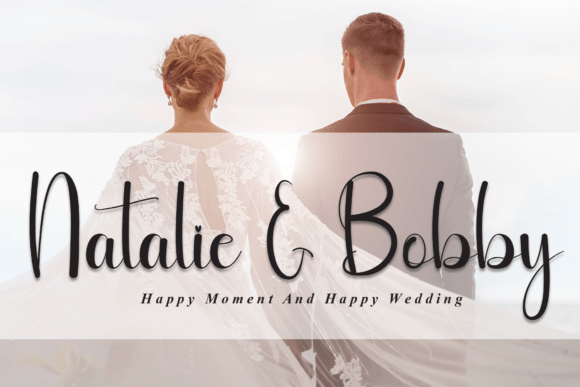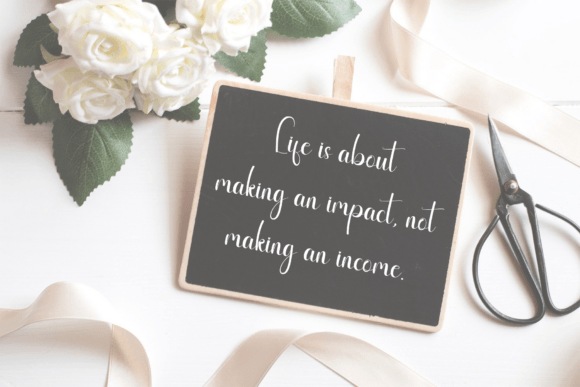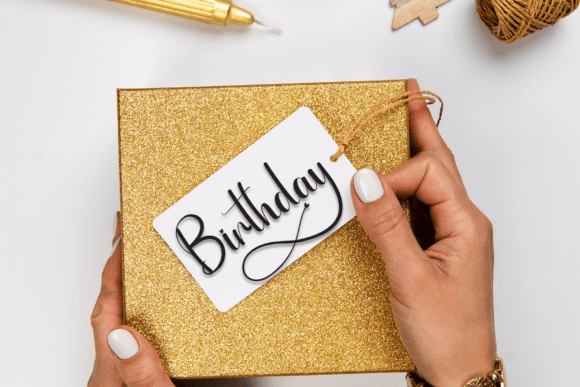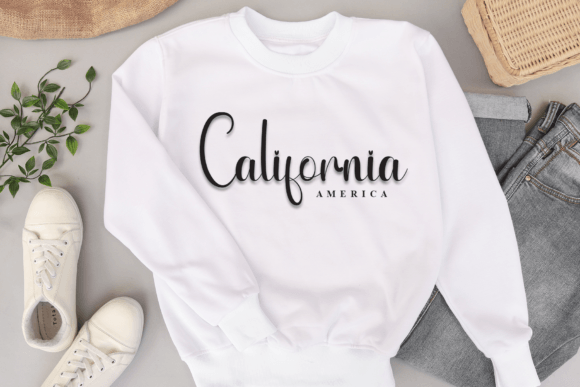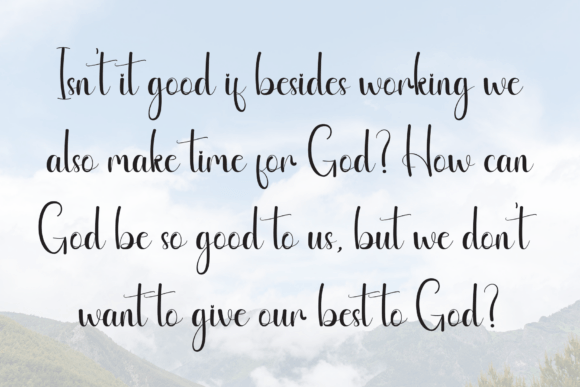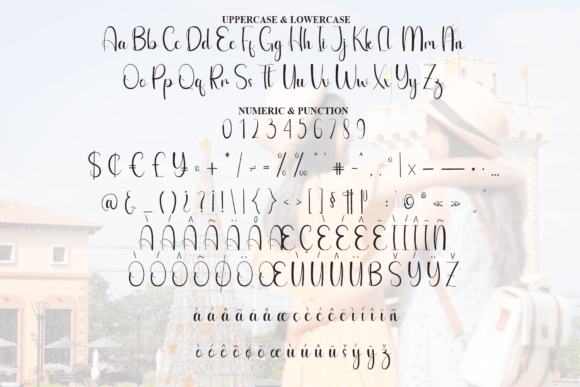
Discover the Magic of Holiday Font
As you sit down to plan your next big project, you can’t help but feel a rush of excitement and creativity. Whether it’s a wedding invitation, a holiday card, or a special birthday message, you want to make it truly unforgettable. That’s where Holiday Font comes in – a delightful handwritten display font that’s sure to bring a smile to your recipient’s face.
With its sincere sweetness and friendly charm, Holiday Font is the perfect addition to any design project. It’s a beautiful blend of timeless elegance and playful spontaneity, making it a valuable tool for designers looking to add a fun and fresh touch to their work. Whether you’re a seasoned pro or just starting out, Holiday Font is sure to help you create designs that are truly one-of-a-kind.
Holiday Font Key Features
- Font Style: A festive, cursive script font designed to evoke a sense of holiday cheer.
- Unique Characteristics: Features intricate, hand-drawn elements and ornaments that can be used to add a touch of whimsy and festivity to designs.
Holiday Font Review
Overall, I think the Holiday Font is a cute and playful addition to any design project. Here are some of its standout features:
- ✨ The font is perfect for creating a festive atmosphere, especially during the holiday season. It’s great for projects that need a touch of whimsy and fun.
- ✨ The font’s irregular shape and bold lines make it easy to read, even in smaller font sizes.
- ✨ The font is highly customizable, allowing you to adjust the size, color, and style to fit your project’s needs.
- ⚠️ The font may be too bold for some projects, and the irregular shape can make it difficult to pair with certain color schemes.
- ⚠️ The font’s playfulness may not be suitable for more formal or professional projects.
- ⚠️ The font may not be as versatile as some other fonts on the market.
Overall, I would give the Holiday Font 3.5 out of 5 stars. While it’s a fun and creative addition to any design project, it may not be the best choice for every project. However, if you’re looking for a font that’s perfect for the holiday season or a playful, whimsical project, the Holiday Font is a great option.
The Holiday Font is commonly used in:
– Christmas and New Year’s greeting cards
– Holiday-themed social media posts
– Decorative signs and banners
– Seasonal marketing materials
For the best results, use the Holiday Font in conjunction with festive colors and graphics. You can also experiment with different font sizes and styles to create a unique look. Don’t be afraid to get creative and have fun with it!